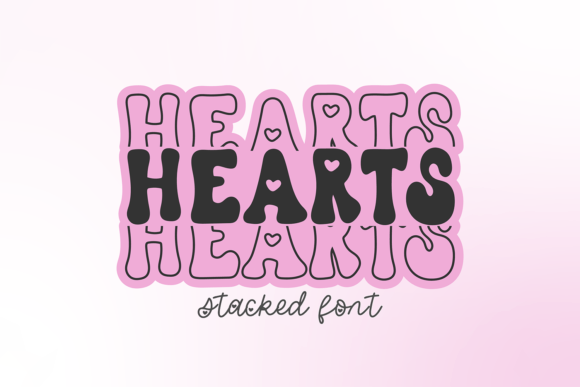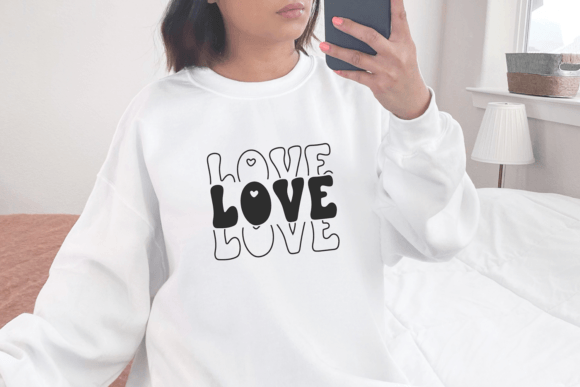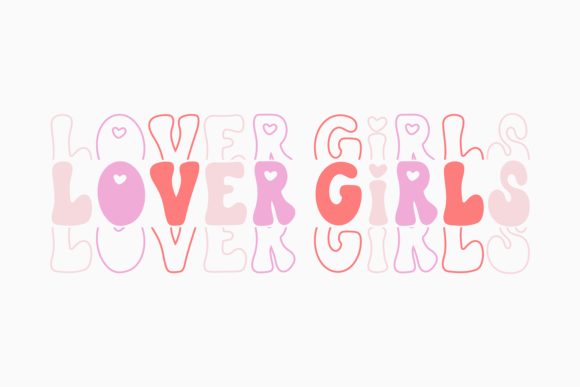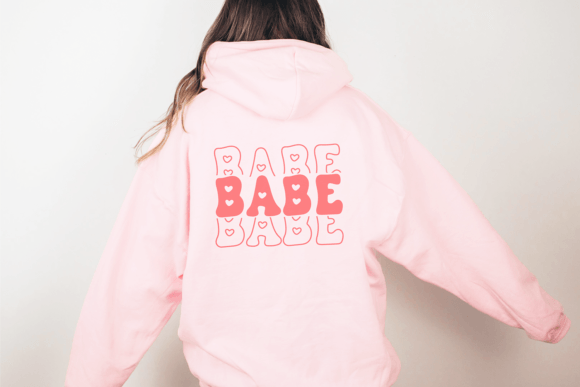
Hearts Stacked Font: Retro Valentine’s Day Font for Cricut Crafts
About the Hearts Stacked Font
Experience the unique personality of Hearts Stacked Font, a font designed for impact. Hearts Stacked is a fun, retro stacked Valentine’s Day font. Use it for branding, crafts, invitations, and more!
Hearts Stacked’s playful, retro style is ideal for projects requiring a touch of vintage charm. It shines in headlines, short slogans, and packaging designs where its stacked letterforms create a visually engaging focal point. Avoid using it for body text or long paragraphs; its unique structure compromises readability at smaller sizes.
This font pairs well with clean sans-serif fonts like Open Sans for a balanced contrast, or a more delicate script font like Great Vibes for a romantic feel. For a bolder, more retro aesthetic, consider pairing it with a geometric sans-serif such as Bebas Neue.
The overall personality is fun and nostalgic, making it perfect for brands targeting a younger audience or those wishing to convey a sense of lightheartedness and retro appeal.